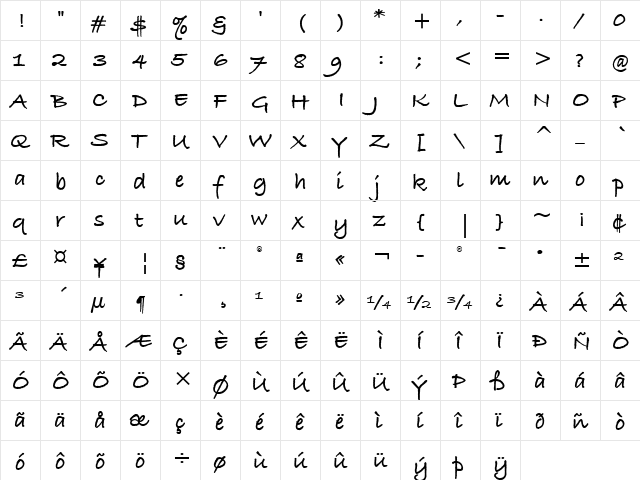
BradleyHand ITC Bold
Design Context for BradleyHand ITC Typeface
BradleyHand ITC brings a calligraphic fluidity to the page — its connecting strokes and expressive curves give it an unmistakably human quality. Its bold stroke weight gives it real presence on the page.
Font Pairing: Combine BradleyHand ITC with a simple geometric sans for maximum contrast — the tension between flowing curves and clean structure is a classic typographic pairing.
Pro Tip: Pair BradleyHand ITC with a clean sans-serif for supporting text. The contrast between fluid script and geometric structure creates an elegant typographic hierarchy.